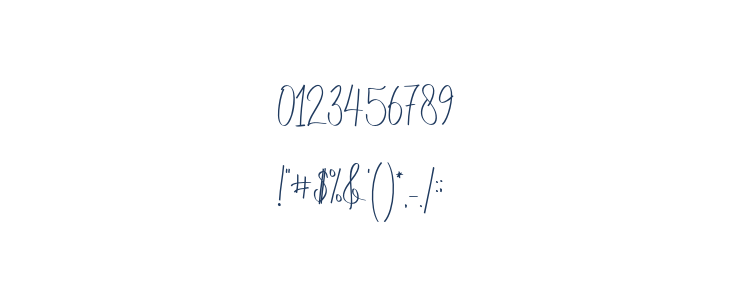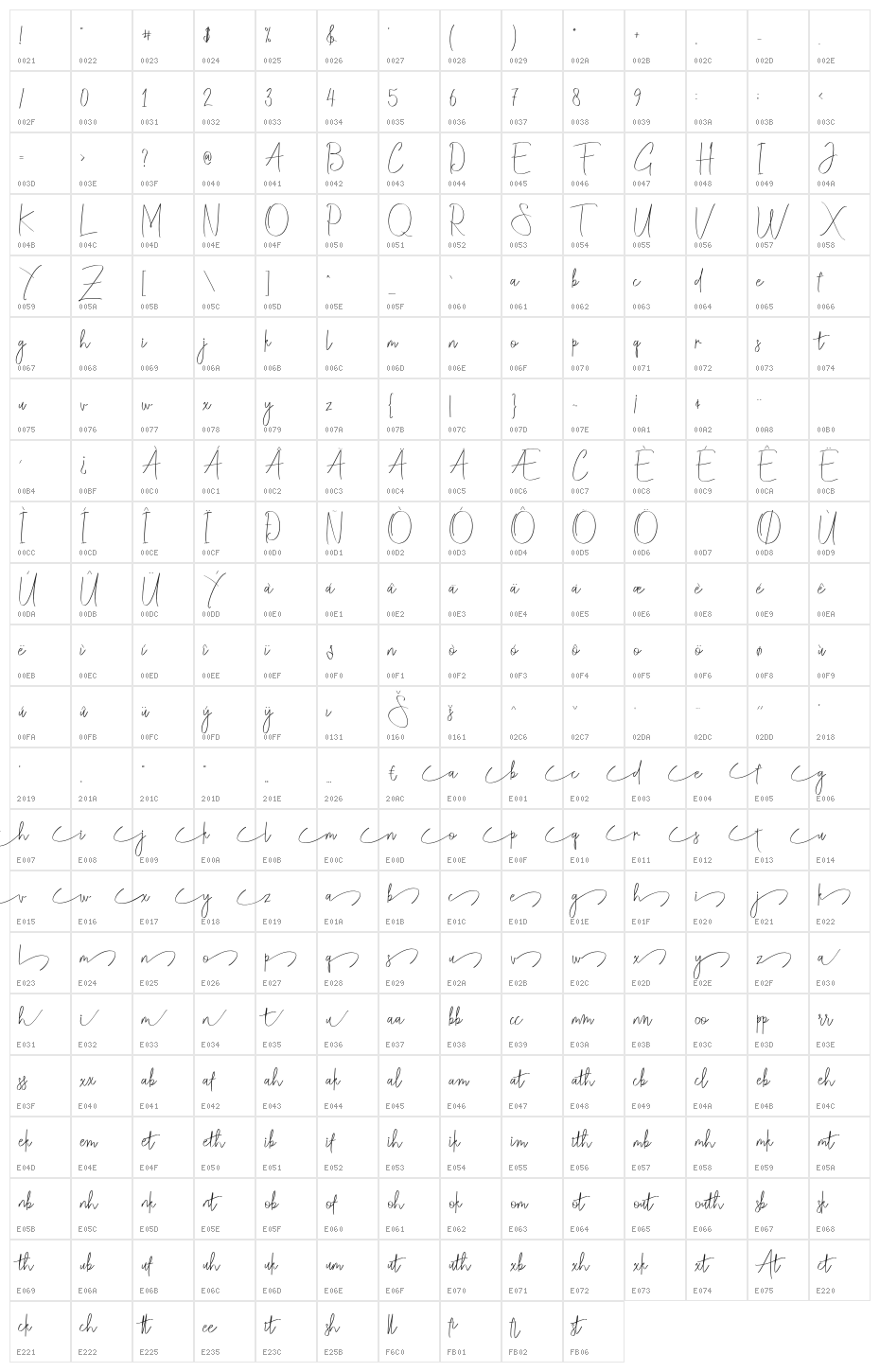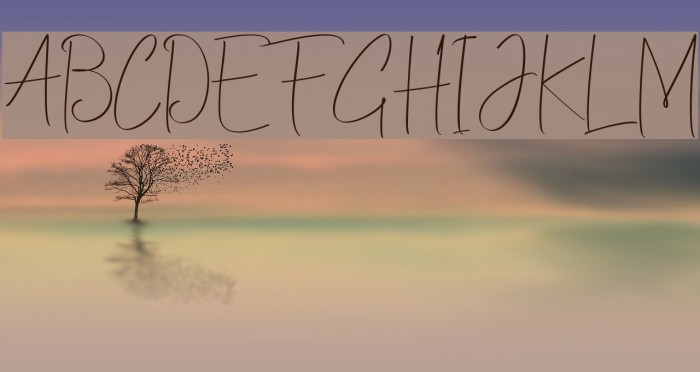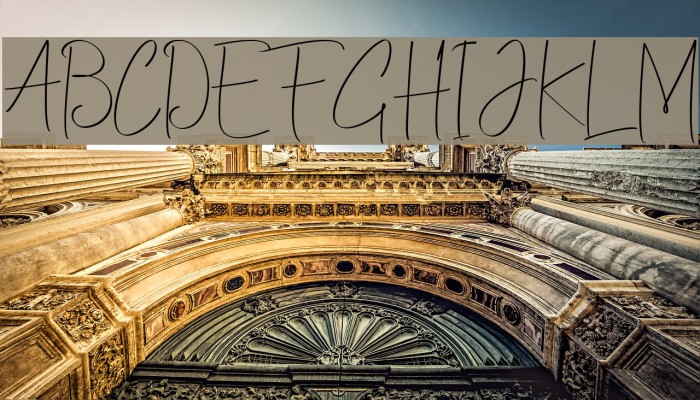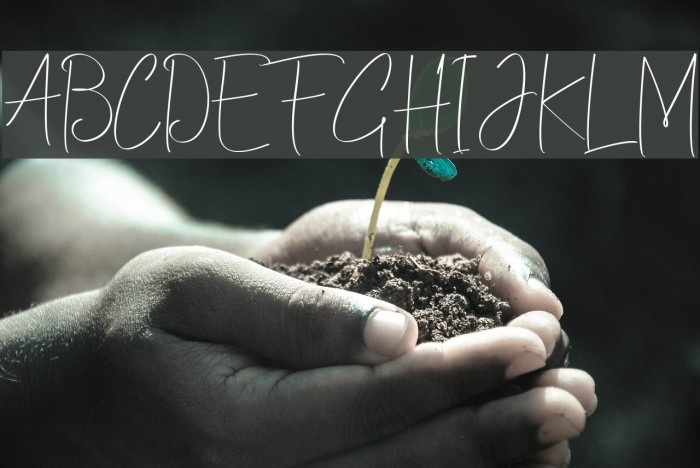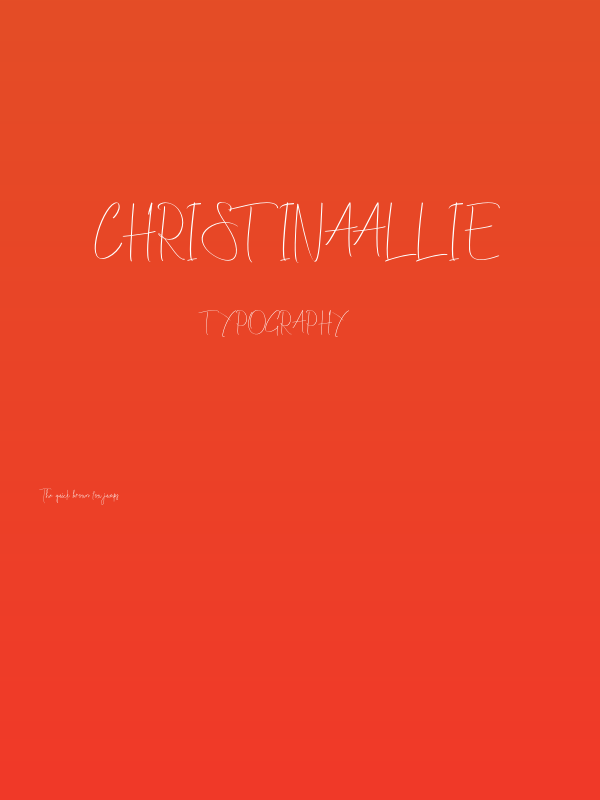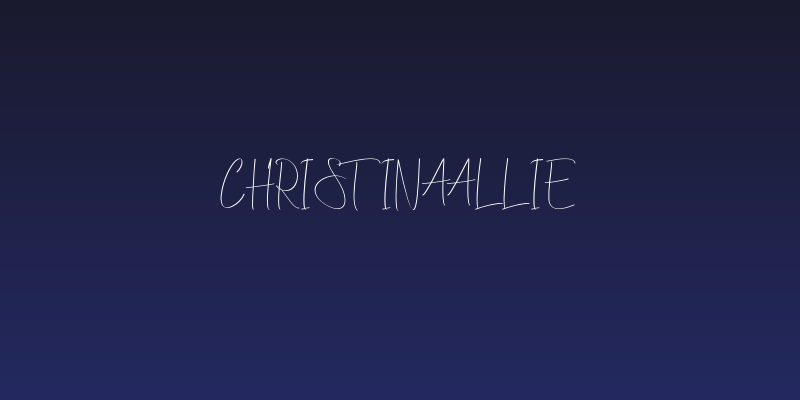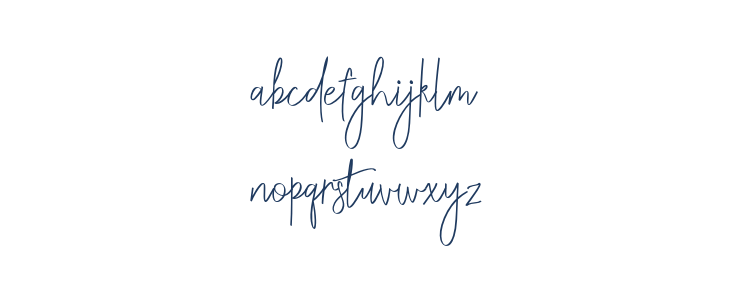
ChristinaAllie Font
ChristinaAllie Description
This font features a delicate and elegant handwritten style, characterized by its thin, flowing lines and graceful curves. The uppercase letters are tall and slender, with a slight slant that adds a touch of sophistication. Lowercase letters maintain a consistent style, with some letters extending below the baseline, enhancing the font's fluidity. The numerals are clear and legible, matching the overall aesthetic. Special characters are thoughtfully designed to complement the alphabet, maintaining the font's cohesive look. This font exudes a sense of modern elegance, making it suitable for a variety of design projects.
| Use Case | Logos, Invitations, Social Media Graphics |
| Proposed Projects | Ideal for wedding invitations, elegant branding, personal stationery, and social media graphics. |